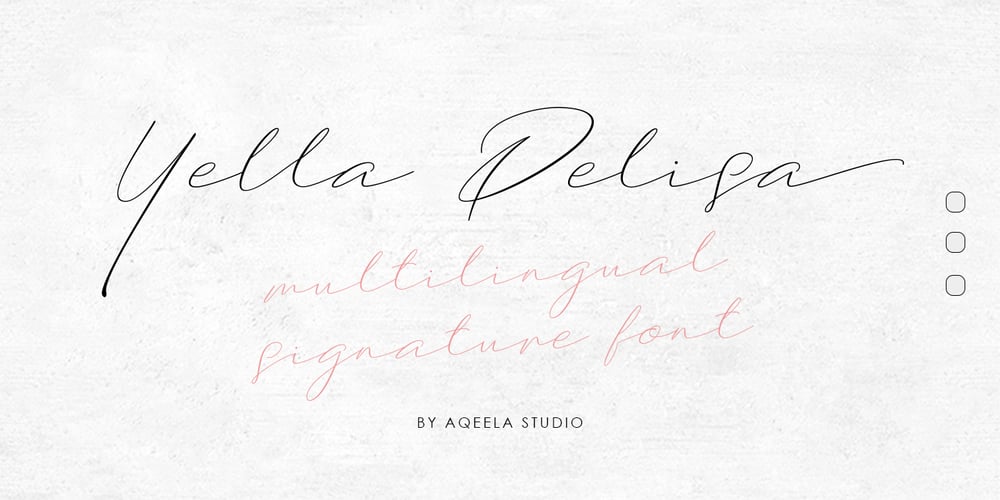
Yella Delisa Font Family was designed by Muhammad Nasir and published by Aqeela Studio. Yella Delisa contains 1 styles and family package options. With the help of the distinctive decorative typeface Yella Delisa, you may create the appearance of handmade lettering. Greek (of course), a Latin character set, and diacritics are all included in the multilingual lettering font Yella Delisa. Your modern graphic design requirements are best served by this distinctive style. If you want to add some flair to long text, choose this font because it has a really good flow. It can be applied to packaging, branding, and social media content.Additionally, Yella Delisa is the best typeface for branding and packaging organic products. Additionally, you can design invitations for weddings and baby showers using this typeface’s romantic emotions. This typeface is perfect for you, especially if you’re seeking one for Instagram quote posts or any other social media content!